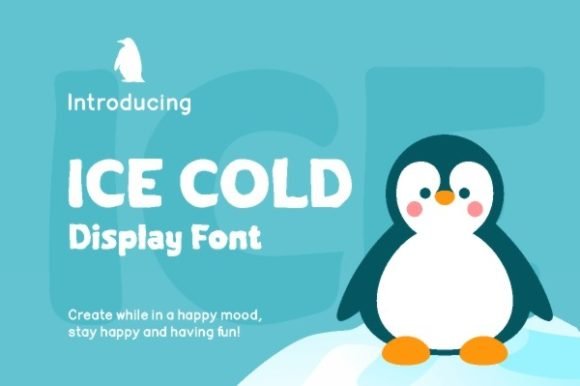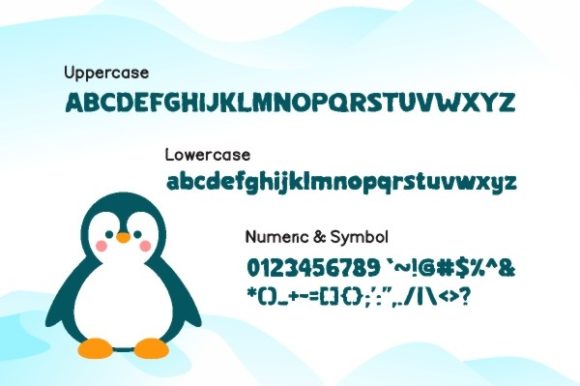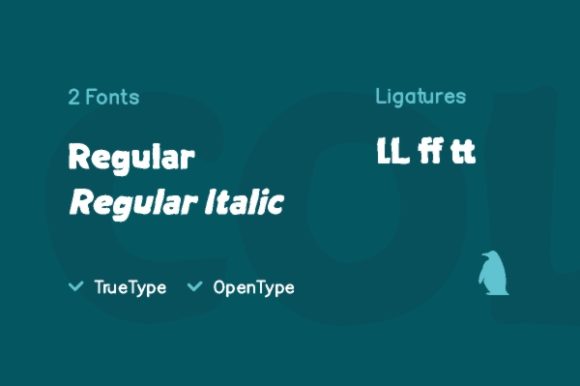
Find Your Chill with Ice Cold Font
Who hasn’t experienced that moment of pure creative bliss, where a font comes along and makes everything feel just right? For designers, it’s a treasure hunt for the perfect typography to bring their ideas to life. And that’s exactly what we’ve got with the Ice Cold Font – a quirky and fun display font that’s perfect for those crafty projects that need a little extra oomph!
With its friendly characters and cool style, Ice Cold Font is a valuable addition to any designer’s toolkit. Whether you’re working on a bold poster, a quirky logo, or a fun invitation, this font is sure to bring a smile to your face and a touch of personality to your design. So, what are you waiting for? Dive into the world of Ice Cold Font and discover the endless possibilities it has to offer!
Ice Cold Font Key Features
- Font Family: Ice Cold Font is a sans-serif font family designed for use in digital and print media.
- Unique Characteristics: The font features a distinctive, futuristic design with a bold and edgy feel, making it ideal for use in graphic design, advertising, and digital media.
Designer Review: Ice Cold Font
Ice Cold Font is a sleek and modern sans-serif font that has the potential to make a statement in your next design project. Here’s what I like about it: ✨
- Unique, futuristic aesthetic that sets it apart from other sans-serif fonts.
- Elegant and sophisticated feel that’s perfect for luxury or high-end branding.
- Well-suited for digital and print applications, making it a versatile choice.
- May not be as readable in smaller font sizes, which could limit its use in certain contexts.
- Some characters may appear slightly awkward or irregular, which could be a turn-off for perfectionists.
- Lacks the nuance and personality of more traditional serif fonts, which may not be suitable for projects that require a more classic feel.
Overall, I’d say Ice Cold Font is a solid choice for designers who want to add a touch of modernity to their work. While it may not be perfect for every project, it’s definitely worth considering for those that require a sleek, high-end aesthetic.
Tips for Getting the Most Out of Ice Cold Font
Use Ice Cold Font for headings and titles to add a touch of elegance and sophistication to your designs.
Pair Ice Cold Font with a clean and minimalist background to make your text stand out.
Experiment with different font sizes and styles to create a unique and eye-catching visual effect.
Use Ice Cold Font for:
Creative business branding and marketing materials.